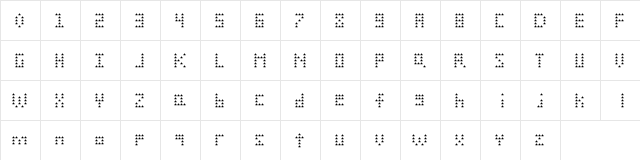
Jazzmen Regular
| Designer | jazzmatazzzz |
Design Context for Jazzmen Typeface
Jazzmen is a composed and adaptable typeface that performs quietly and consistently across a wide range of design contexts.